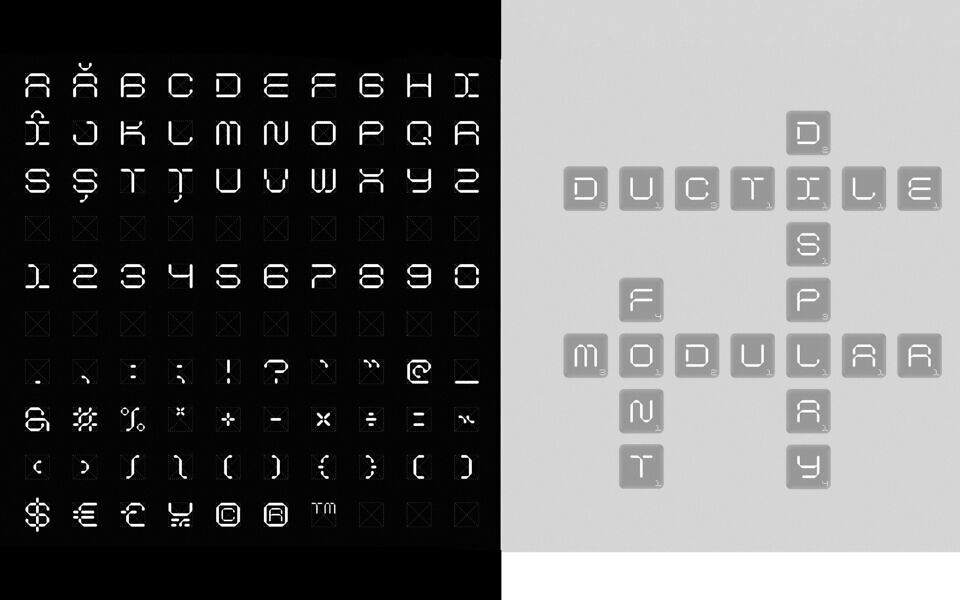
Ductile Display, a futuristic modular font, draws inspiration from ductility—the ability of materials to deform plastically before breaking. Blending structural strength with fluid adaptability, its sleek, segmented letterforms exude an industrial yet dynamic vibe.
With sharp angles and smooth transitions, this typeface creates a striking visual rhythm, ideal for sci-fi branding, experimental posters, and cutting-edge digital interfaces. Its high-tech aesthetic embodies innovation, stretching the limits of futuristic typography while maintaining a bold presence. Ductile Display is perfect for projects needing a transformative, resilient edge with a memorable impact.